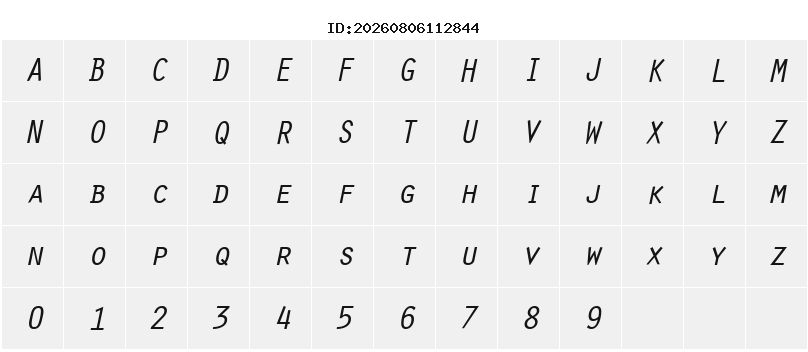
Orator Preview
• Font Name: Orator
• Font Style: RegularItalic
• Full Font Name: Orator-RegularItalic
About Orator.ttf
Orator.ttf is a modern, elegant sans-serif font designed for ultimate readability and visual harmony. Perfect for branding, headlines, web design, and print materials.